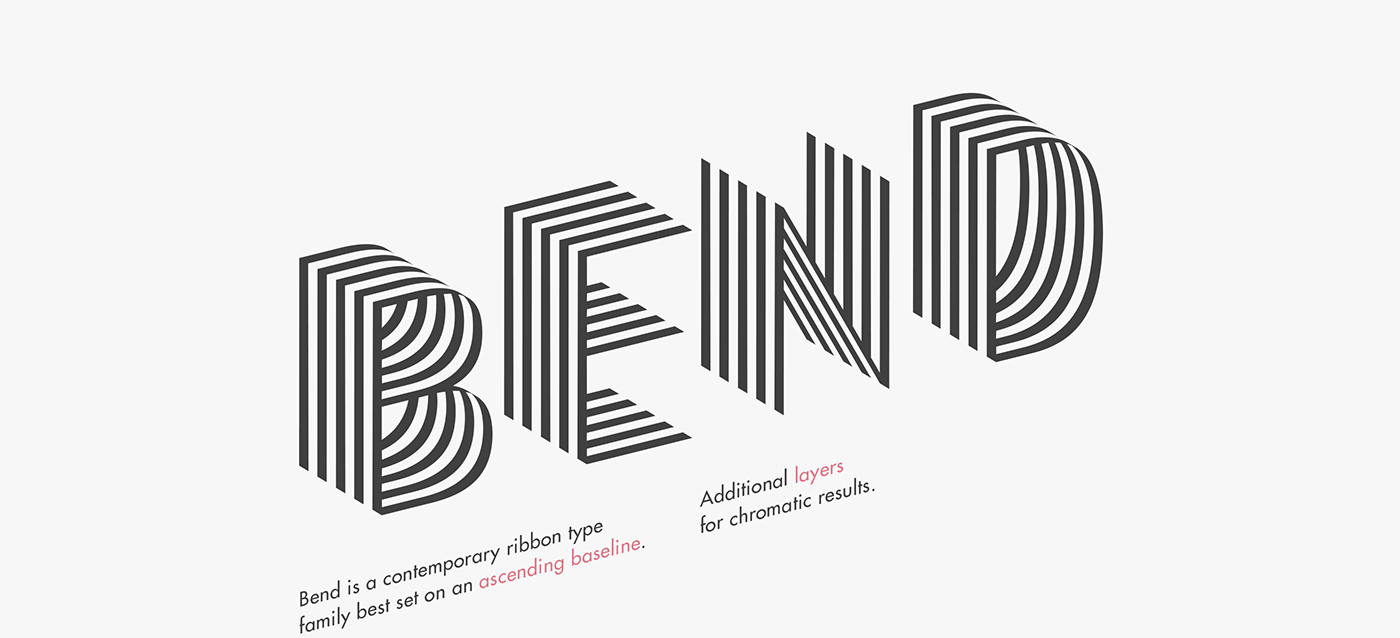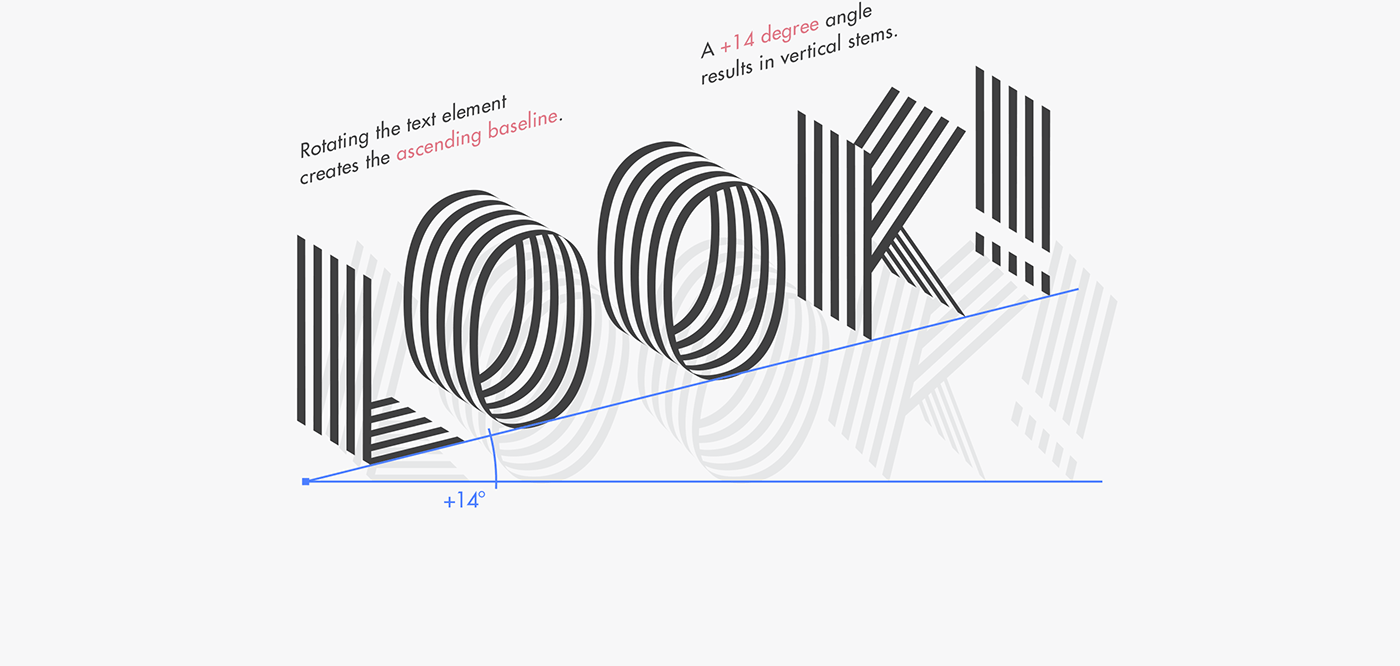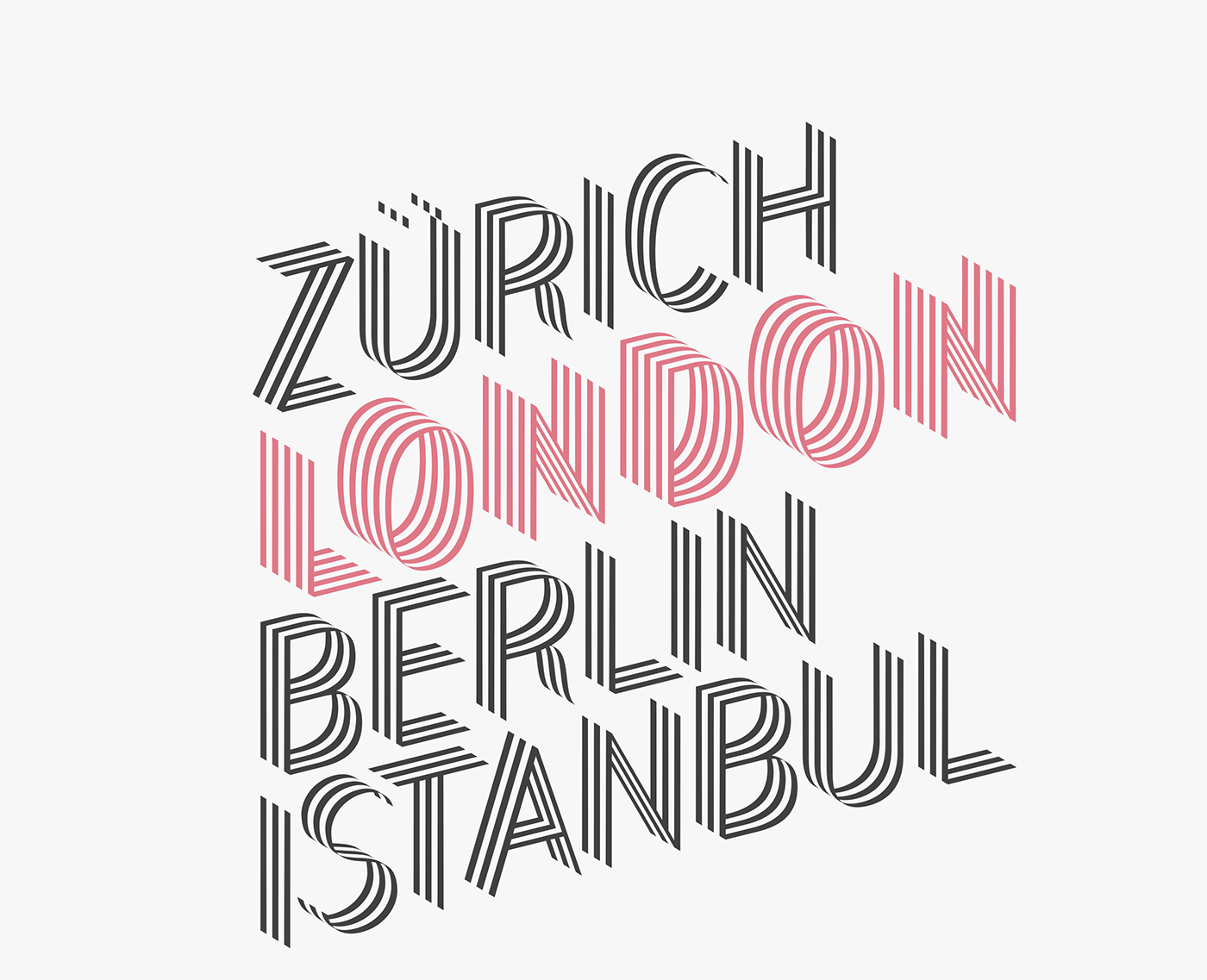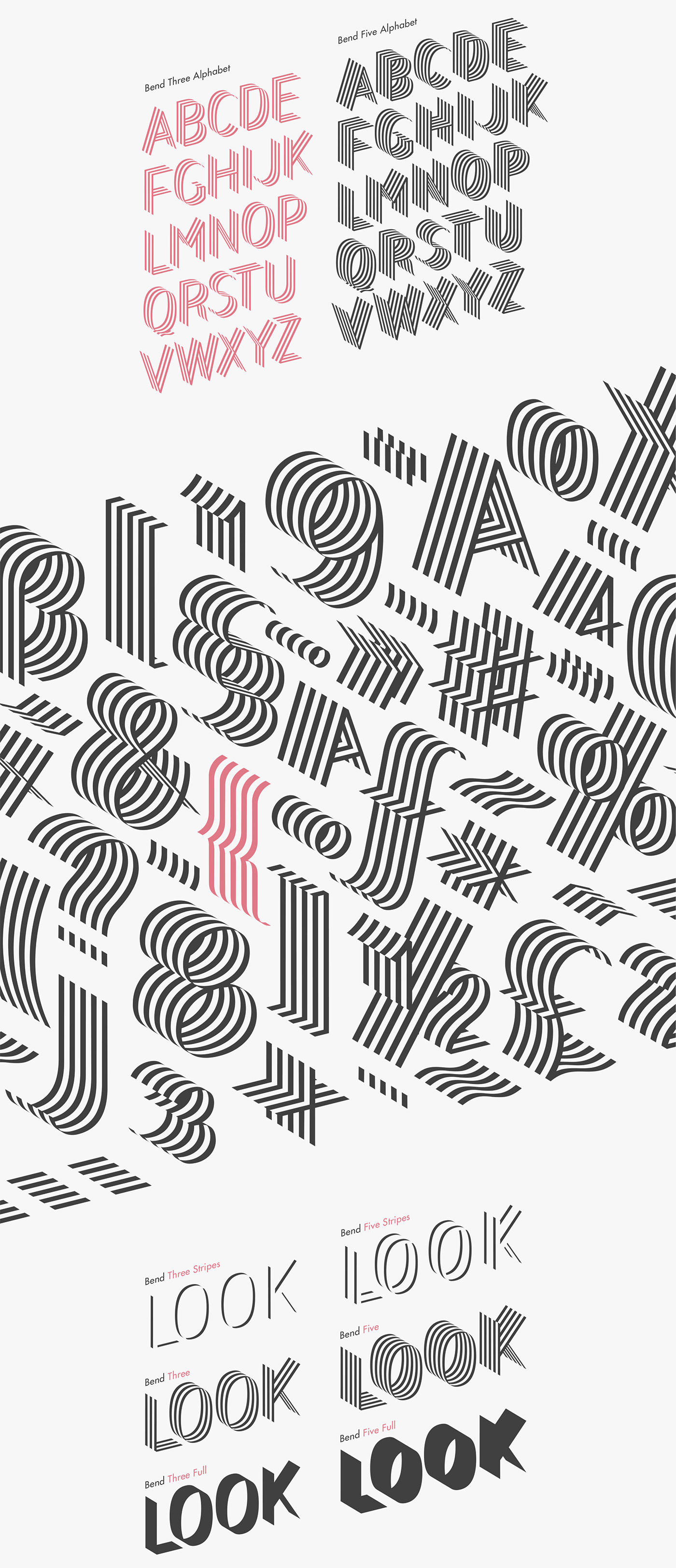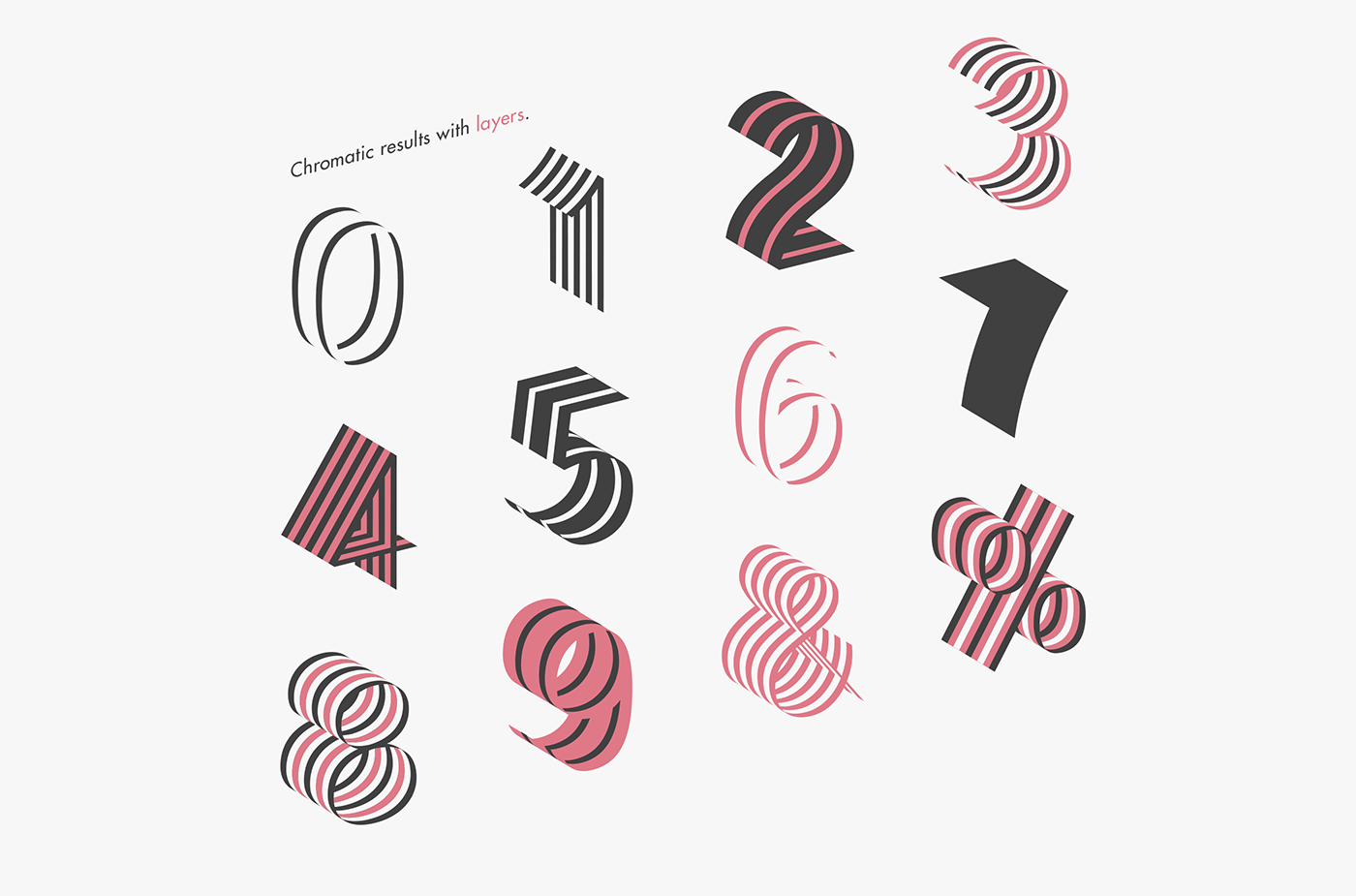
Bend free font
Bend free font is a ribbon typeface sans serif with a cool look. Simply rotating the text element by 14 degrees reveals the 3D effect and Bend’s full potential. Ideal for short sentences, big headlines posters this font is another must have.